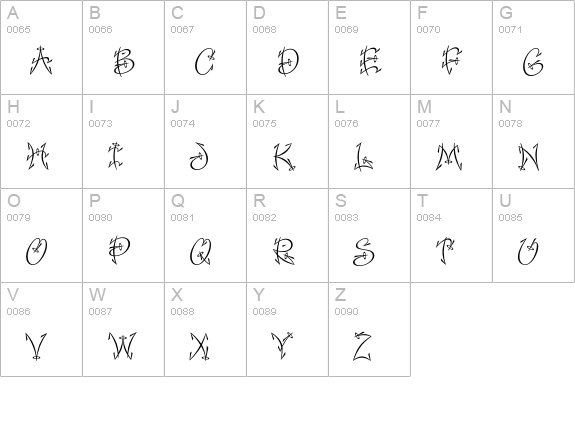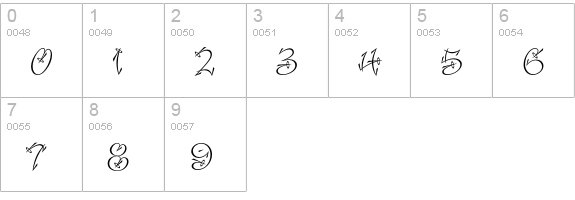
Faithful Fly Plain Font Details
Faithful Fly Plain font is a beautifully crafted typeface that exudes elegance and sophistication. Its sleek and modern design makes it perfect for a wide range of design projects, from branding to editorial design. This versatile font features clean lines and a timeless appeal that is sure to make your text stand out. What sets Faithful Fly Plain font apart is not only its aesthetic appeal but also its accessibility. This font is available for free download at FontsMarket.com, making it a fantastic choice for designers looking to add a touch of class to their projects without breaking the bank. Whether you're working on a logo, website design, or print materials, Faithful Fly Plain font is sure to elevate your work and leave a lasting impression on your audience. Download it today and see the difference it can make in your designs!